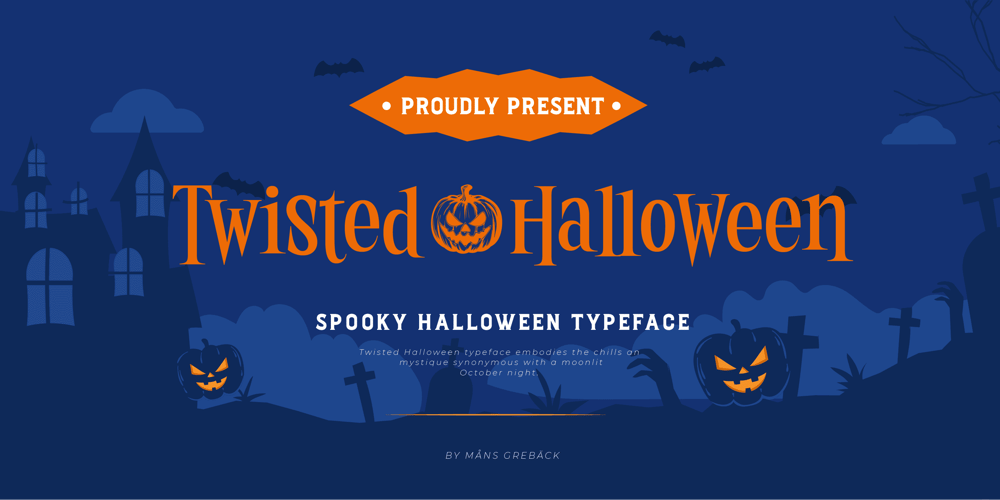
Twisted Halloween Font Family was designed by Måns Grebäck and published by Mans Greback. Twisted Halloween contains 8 styles and family package options. Twisted Halloween typeface embodies the chills and mystique synonymous with a moonlit October night. Out of the norms, its characters undulate freely, rejecting a fixed baseline, giving each word a personality tinged with a blend of spooky and retro allure. Imagine letters that dance like shadows cast by a flickering candle, seemingly sketching tales of witchcraft, mystery, and the eeriness found in episodes of the Twilight Zone. Use asterisk * to make a Halloween cat, or multiple asterisks to make different symbols like pumpkins, demons, skulls. Example: Witch*Craft & Black******Magic